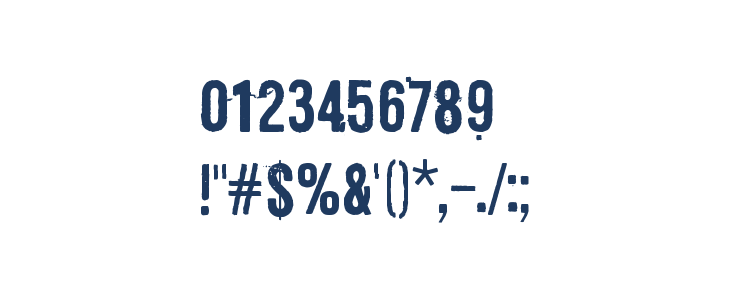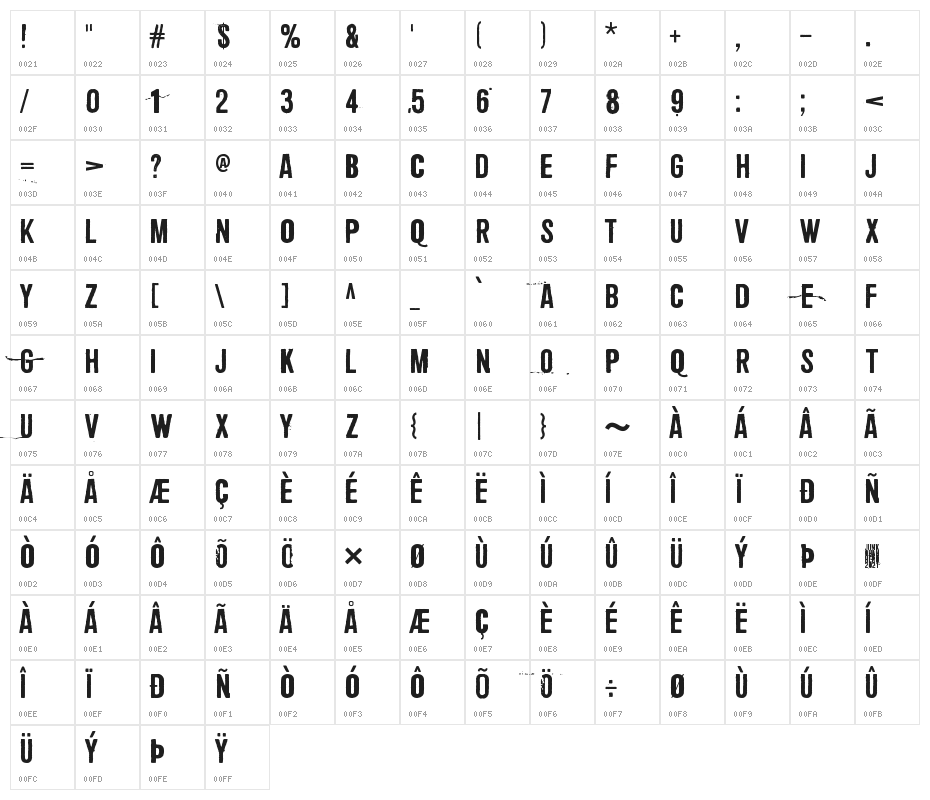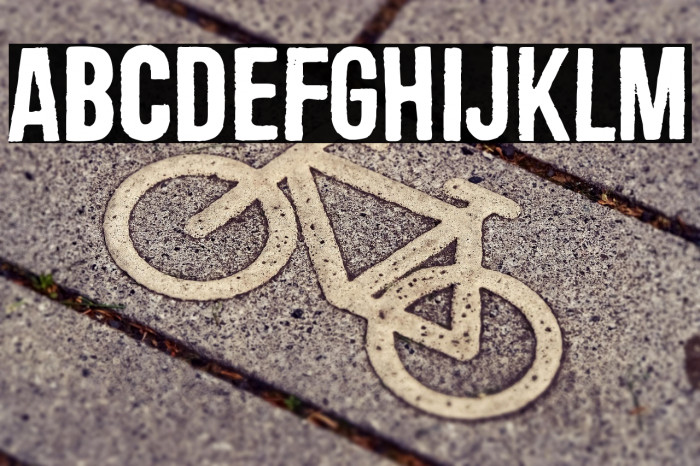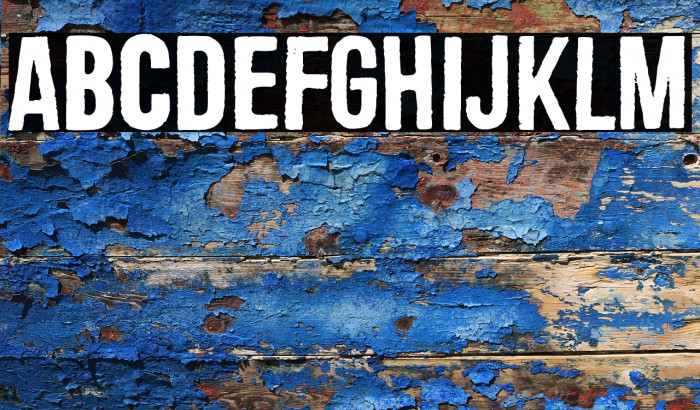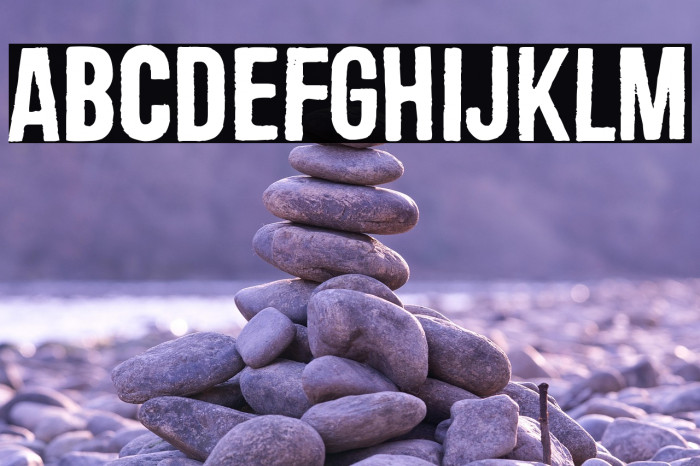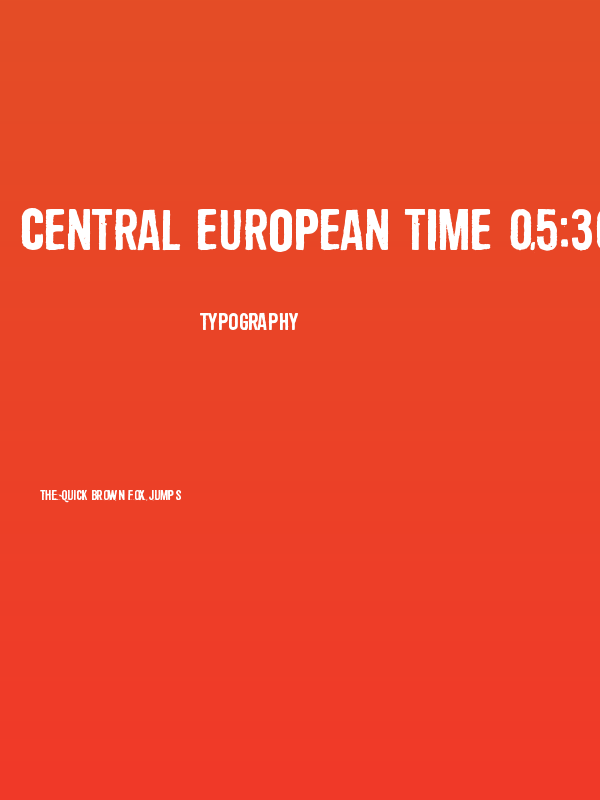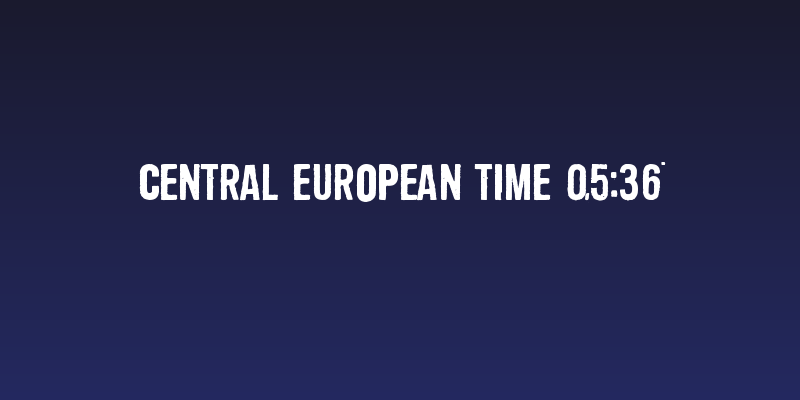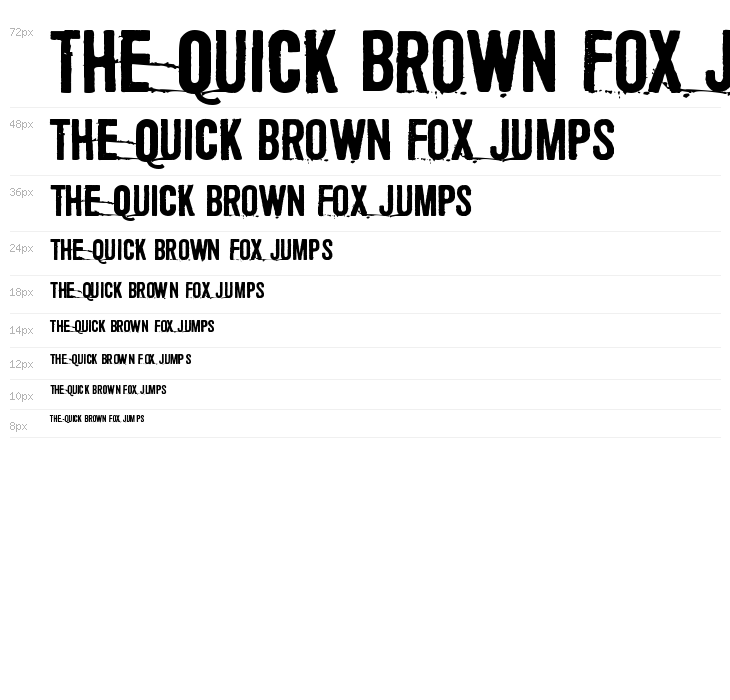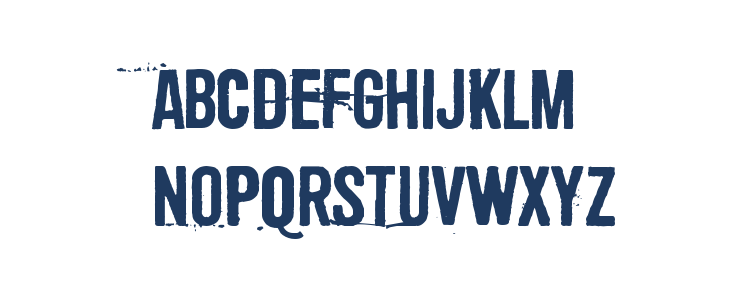
Central European Time 05:36 Font
Central European Time 05:36 Description
This font features a bold, distressed style with a vintage, grunge aesthetic. The characters are uppercase and have a rough, textured appearance, suggesting a worn or weathered look. The numbers and special characters follow the same design, maintaining consistency across the set. The font's boldness and unique texture make it stand out, ideal for projects that require a strong visual impact. The spacing between characters is relatively tight, enhancing the compact and robust feel of the text. The overall style is decorative, with a focus on creating a rugged, industrial vibe.
| Overall Style | Vintage, Grunge |
| Proposed Projects | Ideal for posters, album covers, branding for edgy or industrial-themed products, and any design requiring a strong, impactful visual. |